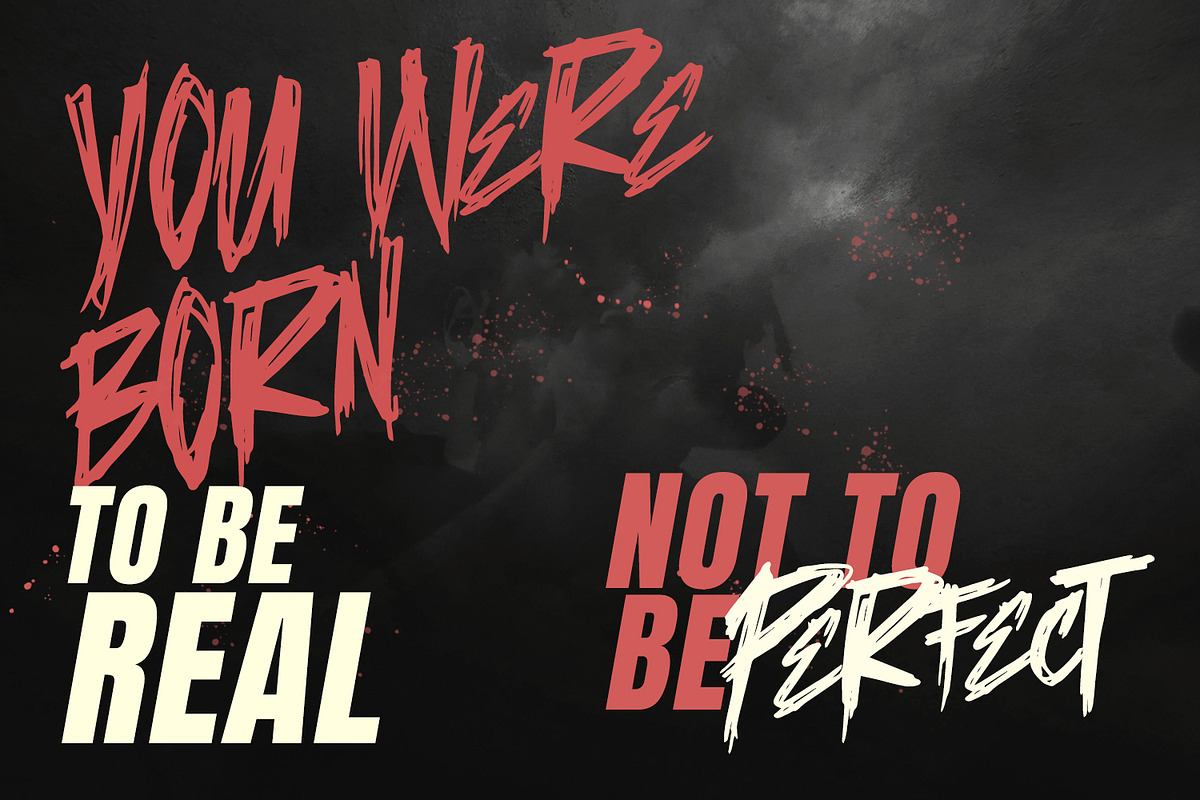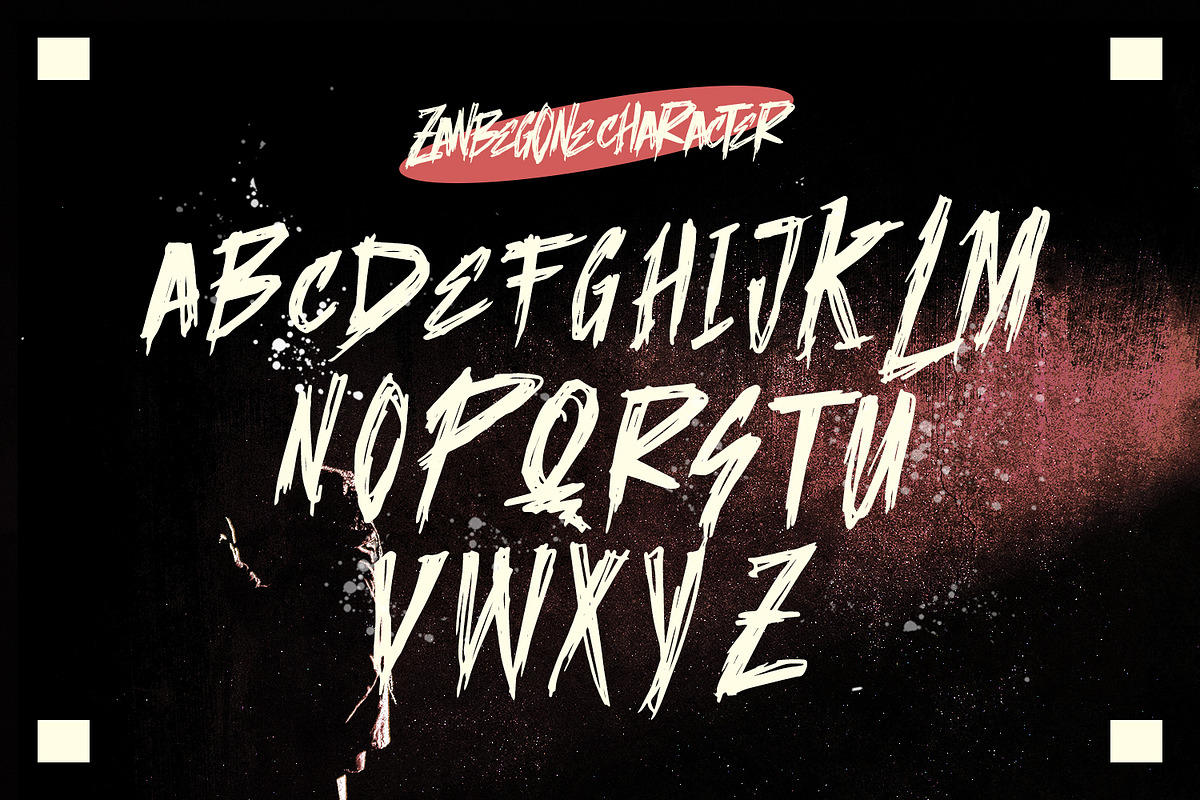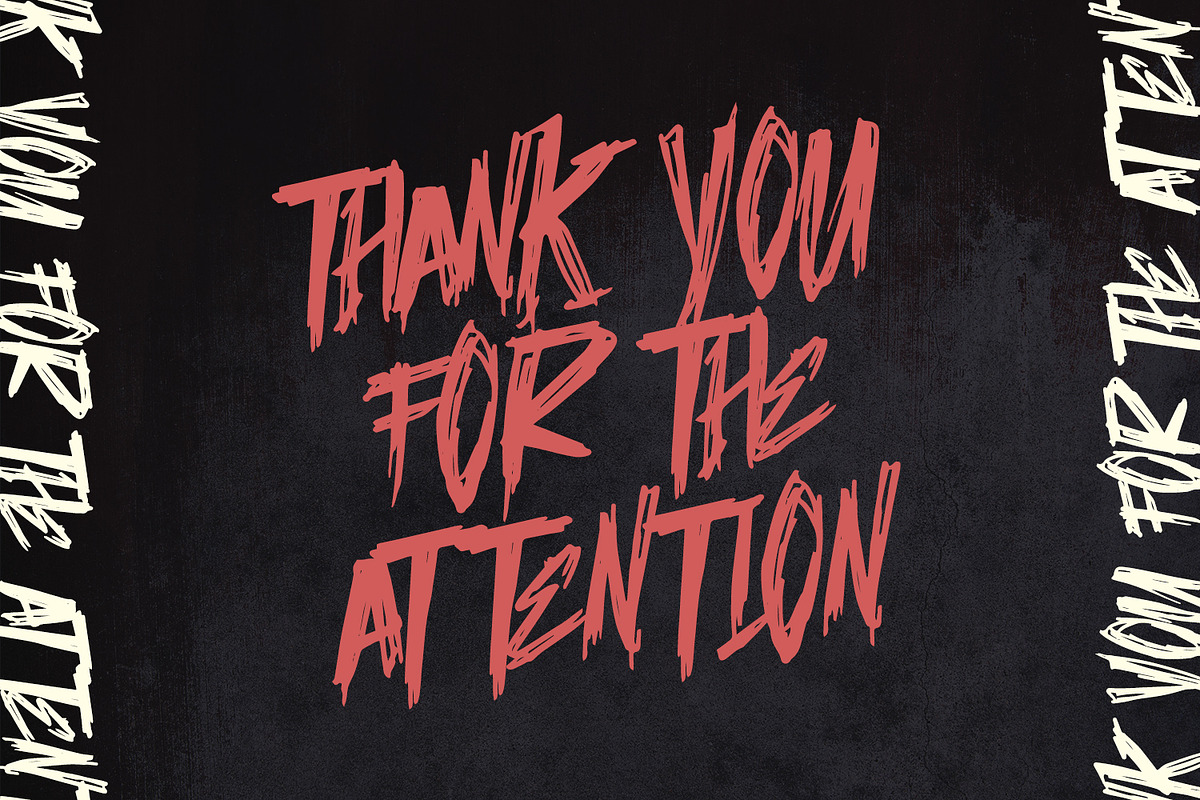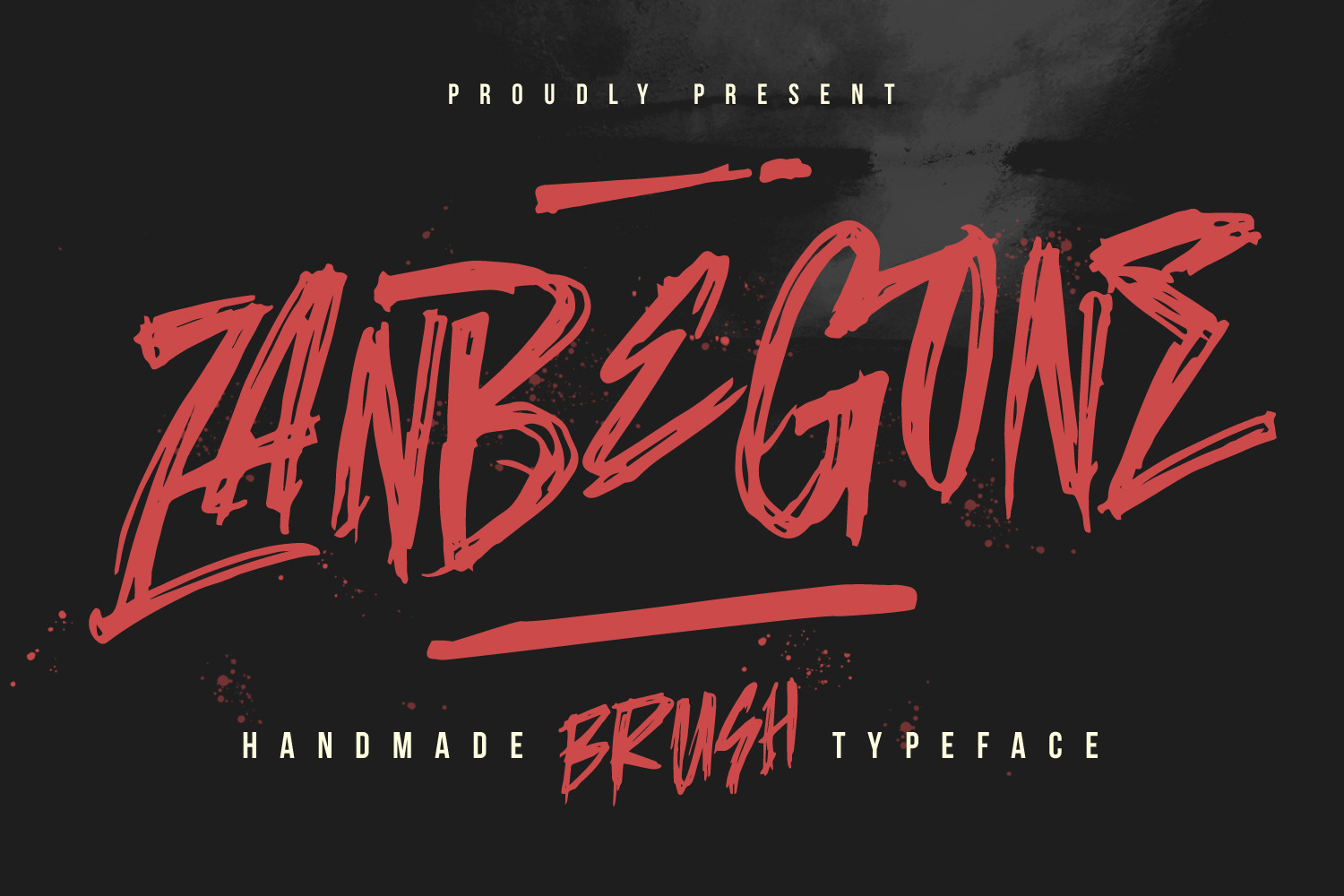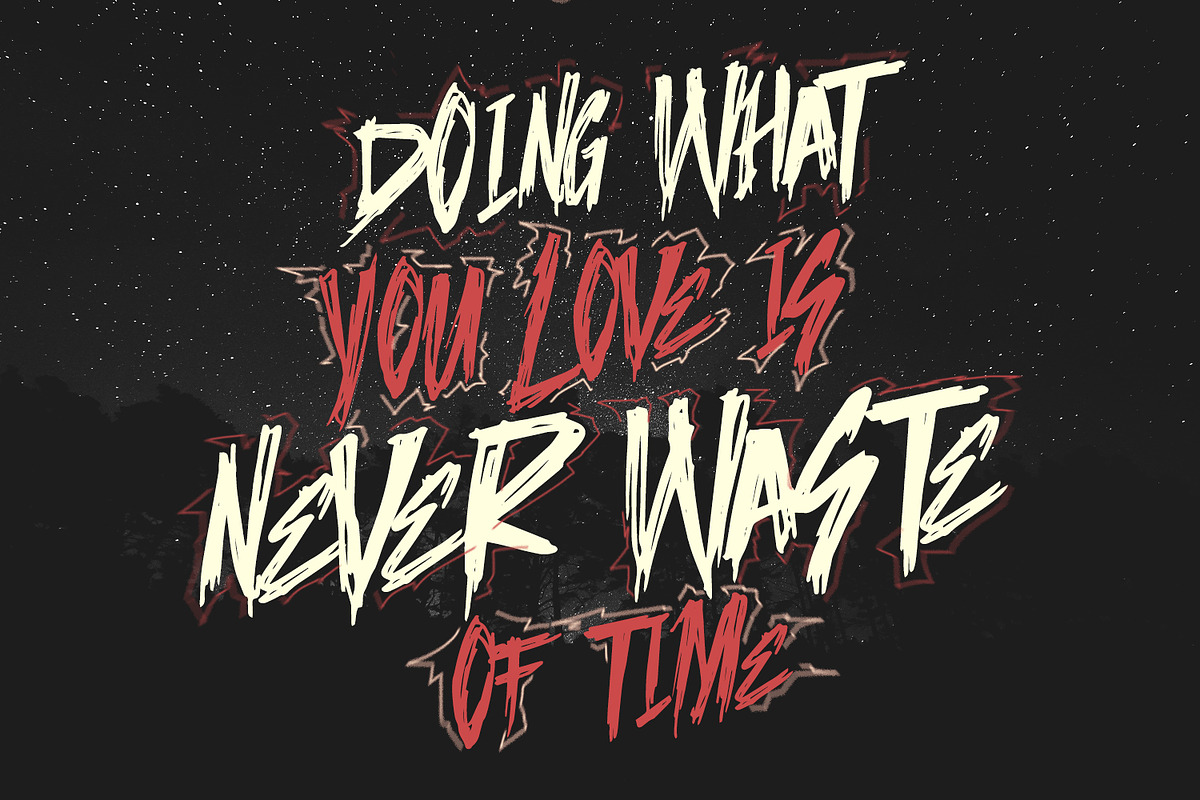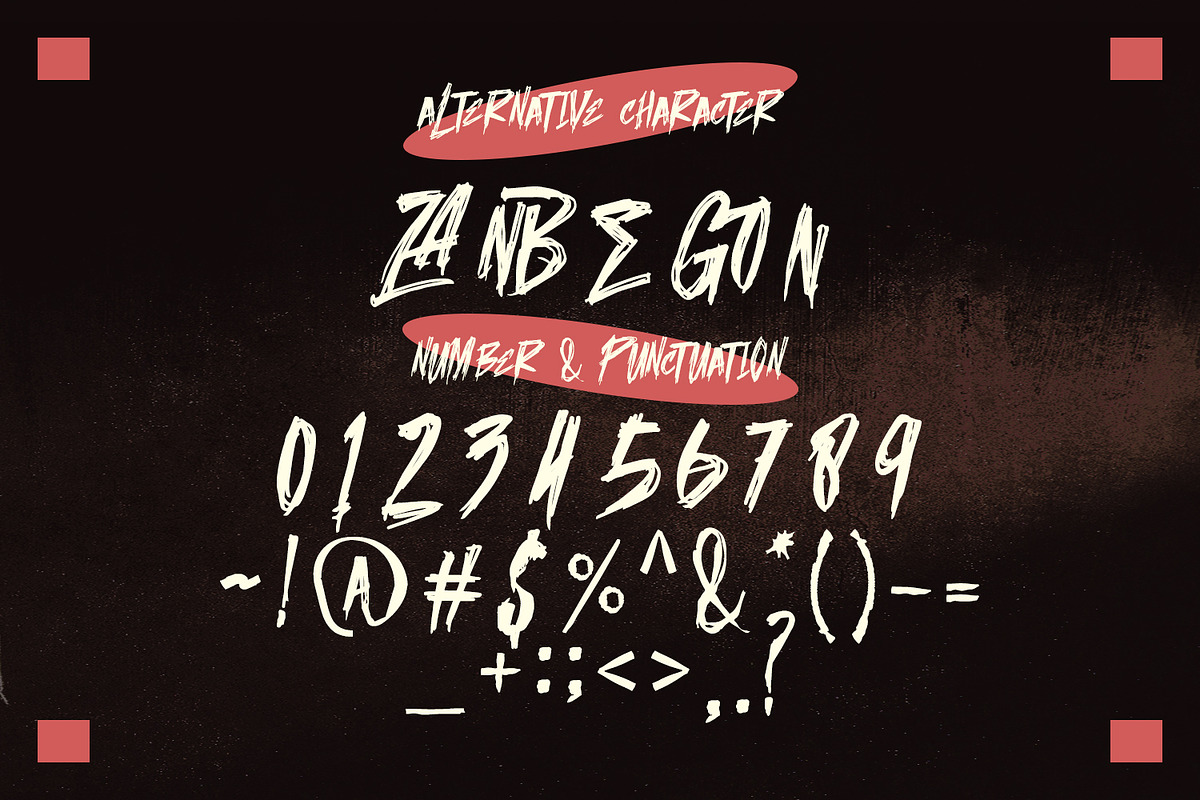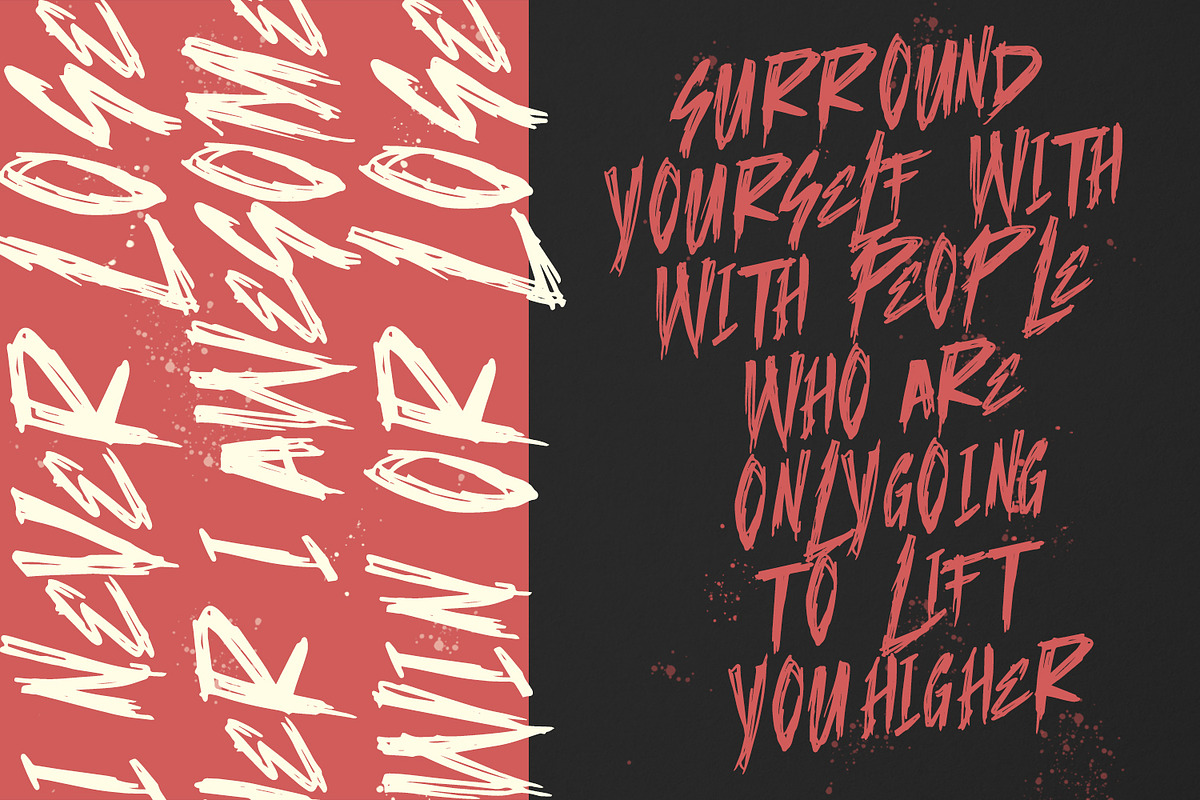
Zanbe Gone Handmade Brush Font
Give your designs an authentic brush handcrafted feel. "Zanbe Gone Handmade Brush Font" is perfectly suited to signature, stationery, logo, typography quotes, magazine or book cover, website header, flyer, clothing, branding, packaging design and more.